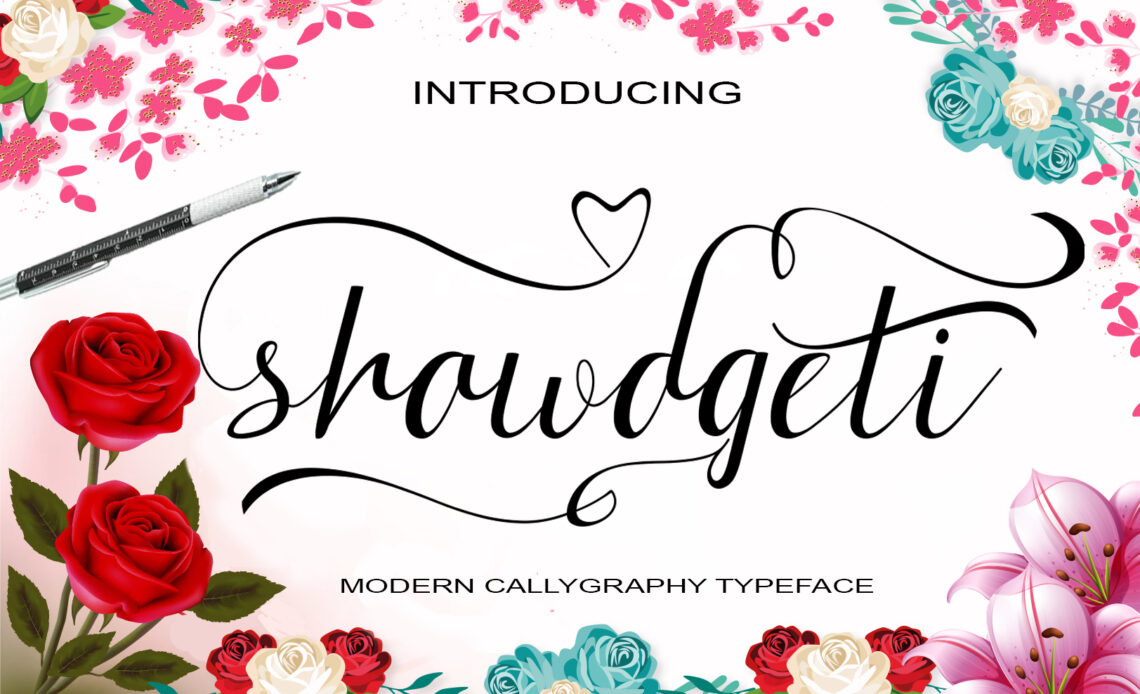
Shawdgeti Font
Unleash the Beauty of Shawdgeti: A Script Font to Ignite Your Creativity
Journey into the world of Shawdgeti, a captivating script font that will ignite your creativity and transform your designs into masterpieces. This exquisite font, crafted with precision and meticulous attention to detail, is a testament to the art of handwriting. Its enchanting flow and elegant curves will add a touch of sophistication to any project, making it the perfect choice for those seeking to make a statement.
Whether you're a seasoned designer or just starting out, Shawdgeti will effortlessly elevate your work. Its versatility knows no bounds, as it seamlessly adapts to a wide range of projects, from logos and branding to social media graphics and invitations. With its ability to convey both a traditional and contemporary feel, Shawdgeti is a font that will never go out of style.
Step into the realm of Shawdgeti and discover a font that will captivate your audience and leave a lasting impression. Its unique charm and undeniable beauty will make your designs stand out from the crowd, adding a touch of elegance and personality that is sure to turn heads.
Unlock the power of Shawdgeti today and unlock a world of creative possibilities. Experience the joy of creating designs that resonate with your audience and leave them yearning for more. Shawdgeti is not just a font; it's an artistic expression that will transform your designs into works of art.